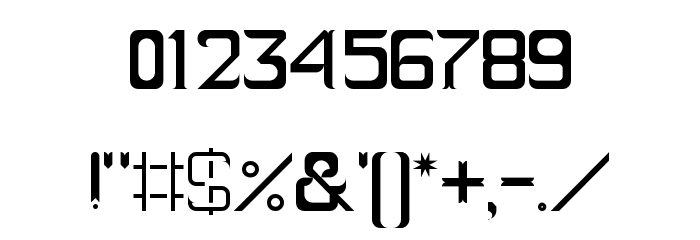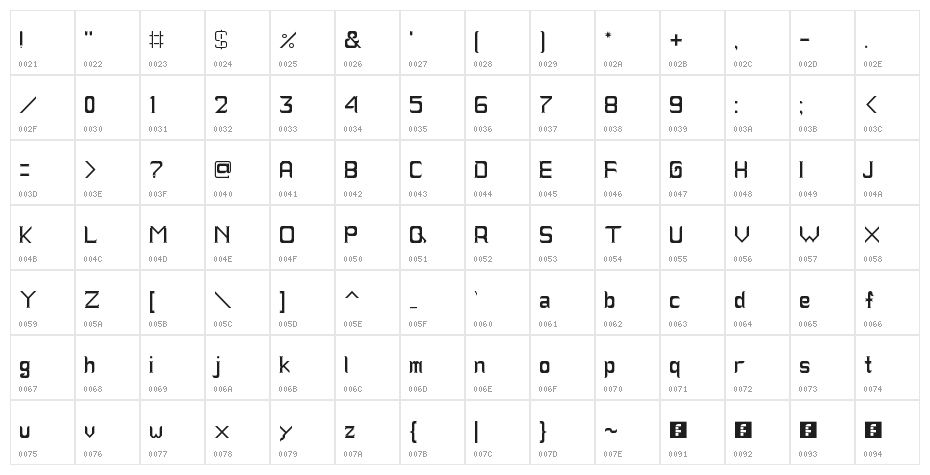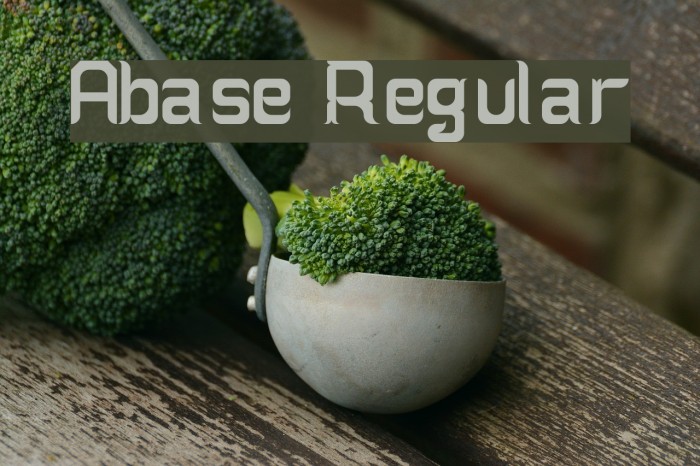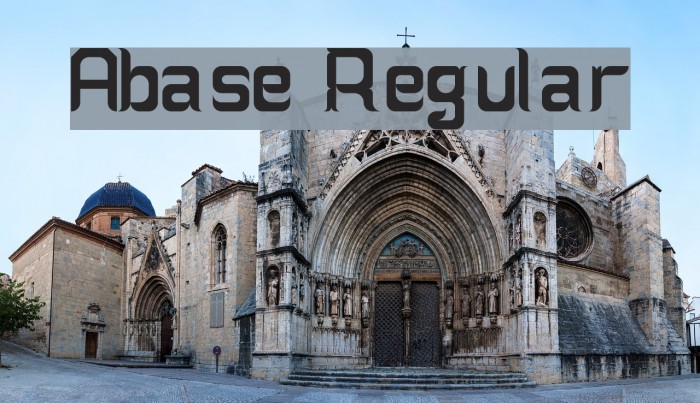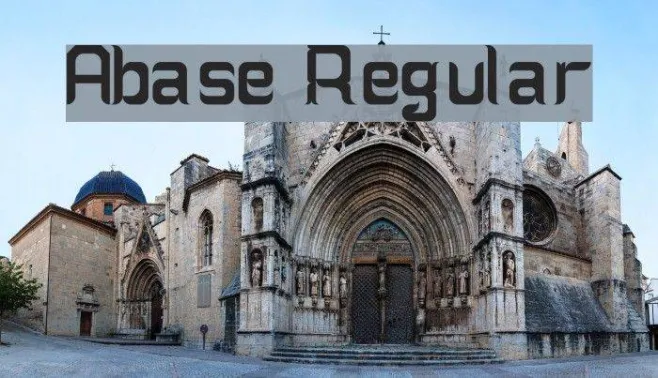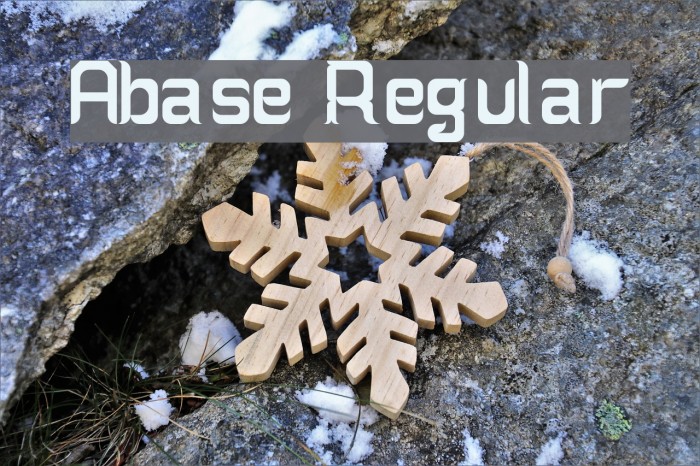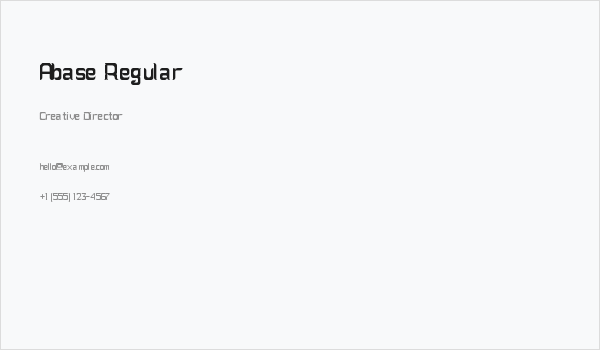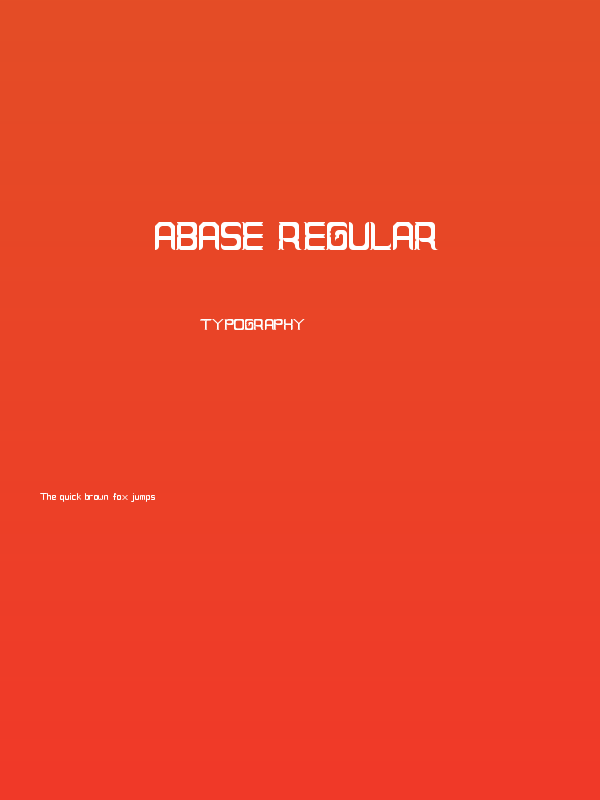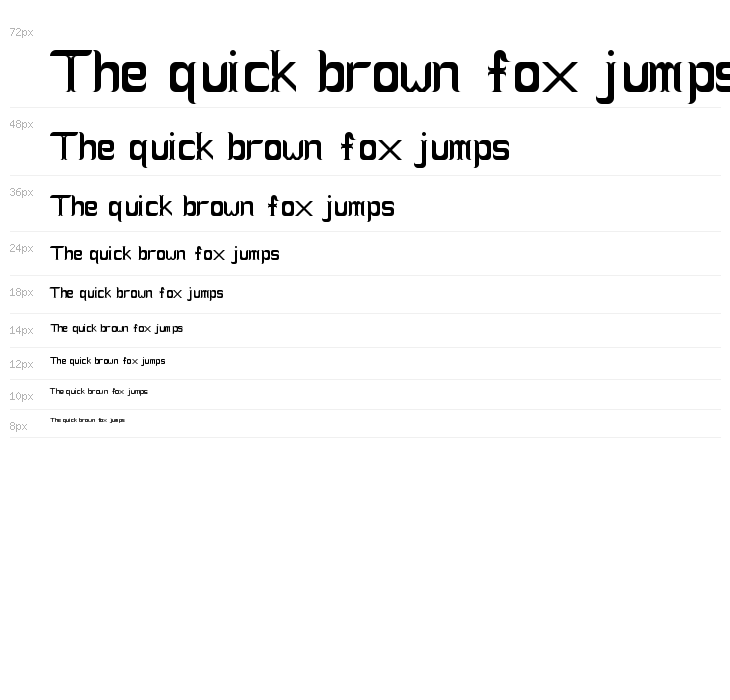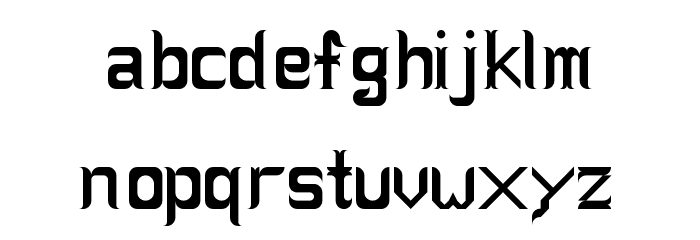
Abase Regular Font
Abase Regular Description
This font features a distinct and modern design with sharp, angular edges and a futuristic aesthetic. The uppercase letters are bold and geometric, with unique cutouts and intersections that create a dynamic visual effect. The lowercase letters maintain a similar style, offering a cohesive look across different cases. Numbers and special characters follow the same design principles, ensuring consistency throughout. The font's structure is both striking and legible, making it suitable for attention-grabbing headlines and creative projects.
| Proposed Projects | Ideal for sci-fi themed designs, technology branding, video game titles, and modern posters. |